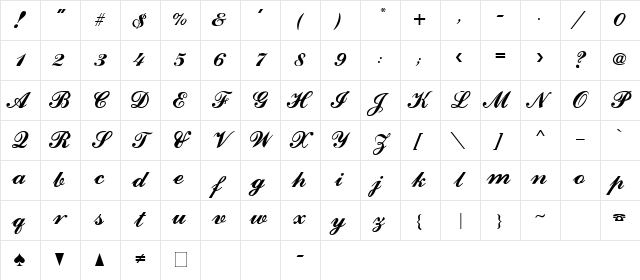
Design Context for Ford Script
Ford Script flows with the natural rhythm of handwritten lettering, making it ideal for designs that call for warmth and personal expression.
Font Pairing: Combine Ford Script with a simple geometric sans for maximum contrast - the tension between flowing curves and clean structure is a classic typographic pairing.
Pro Tip: Use Ford Script for short runs of text - names, titles, or taglines. Extended body copy in script faces tires the eye quickly.